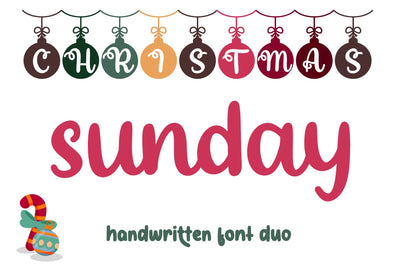
Christmas Sunday - christmas font duo
Christmas Sunday is an elegant hand lettering look attractive and natural! Every single letters have been carefully crafted to make your text looks beautiful.
Christmas Sunday is a lovely and timeless handwritten font. It is the best choice for creating eye catching logos, branding and quotes. Every letter has a unique and beautiful touch, which will make your design come alive!